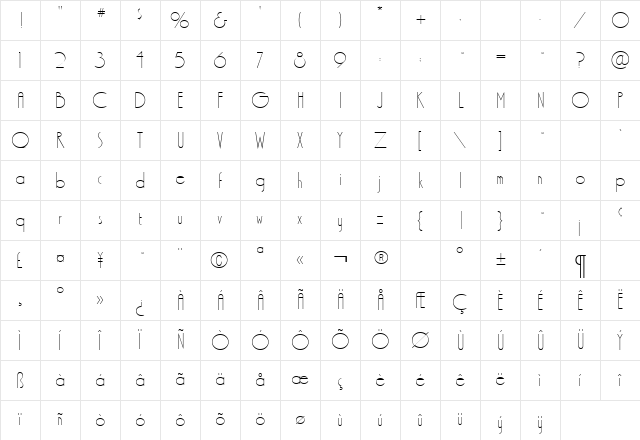
XctasySansRR Light Regular Free Font
XctasySansRR Light Regular
Design Context for XctasySansRR Light
XctasySansRR Light is a composed and adaptable typeface that performs quietly and consistently across a wide range of design contexts. Its slender proportions lend an understated elegance to any composition.